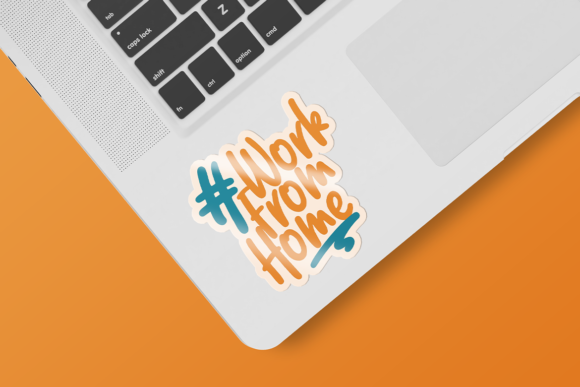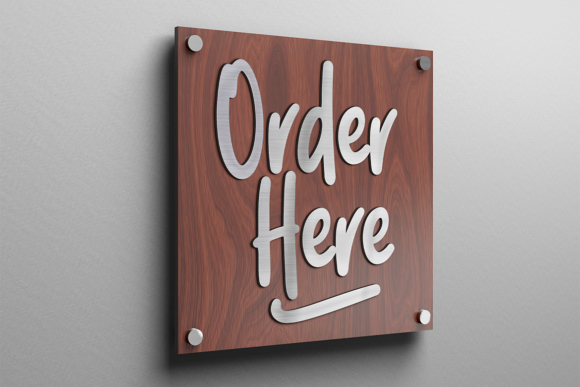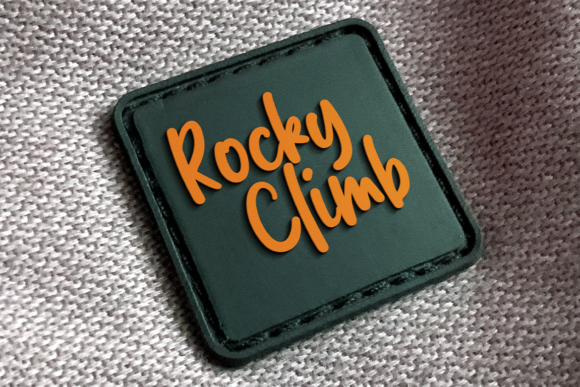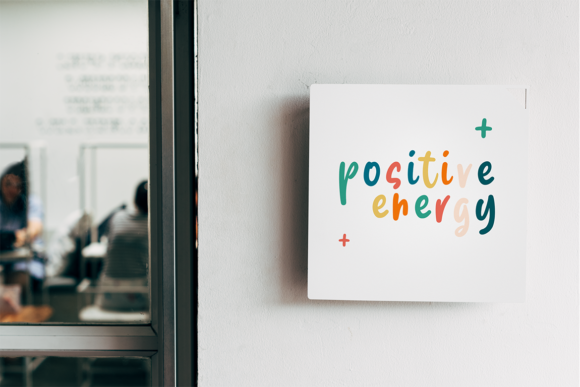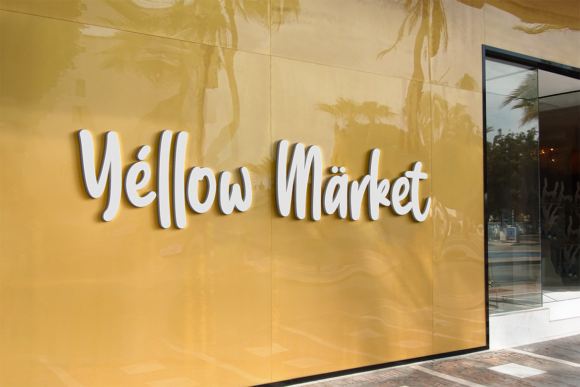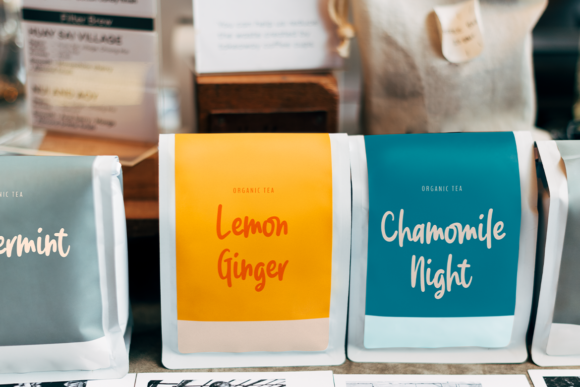
Introduction to Rhodthink Font Font
Fonts play a crucial role in design, and the Rhodthink Font font is a typeface that brings both character and versatility to any project. Whether you’re working on a branding project, a website, or a print design, the Rhodthink Font font offers a unique style that can elevate your work.
Rhodthink is a cool, simple and relaxed handwritten font.
Whatever the topic, this font will be a wonderful asset to your font library, as it has the potential to enhance any creation .
Key Features of Rhodthink Font Font
Why Choose Rhodthink Font Font?
The Rhodthink Font font is more than just a typeface – it’s a design tool that helps you communicate your message with style and clarity. Its unique character set and versatile design make it suitable for a wide range of applications, from elegant invitations to bold headlines.
With its carefully crafted letterforms and balanced proportions, the Rhodthink Font font ensures readability and visual appeal across all mediums.
What makes Rhodthink Font font special?
The Rhodthink Font font stands out with its unique design, exceptional readability, and versatility across various design applications.